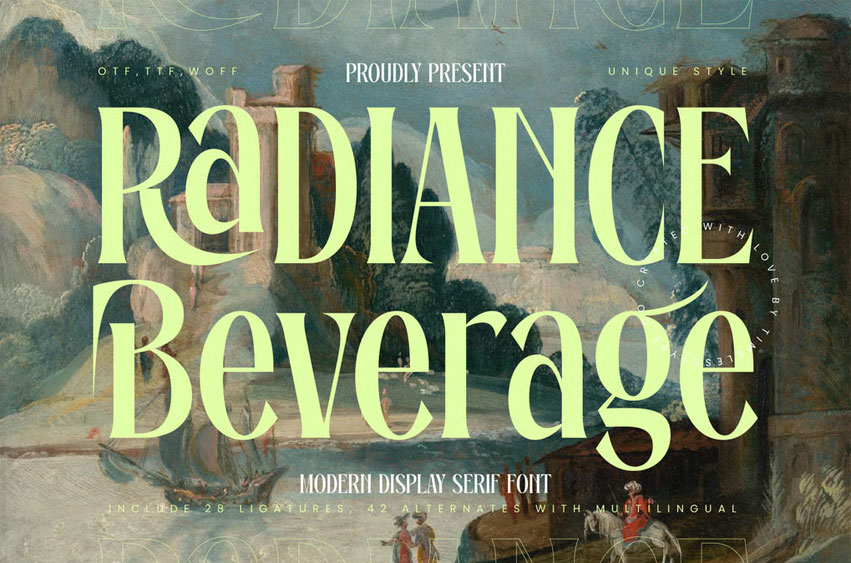
Radiance Beverage Font is a modern display serif font that combines artistic elegance with bold vintage charm. Featuring 28 ligatures and 42 stylistic alternates, this font delivers a unique balance between sophistication and creativity.
Perfect for editorial design, packaging, branding, and fashion projects, Radiance Beverage brings a luxurious and expressive character that stands out in both print and digital compositions.